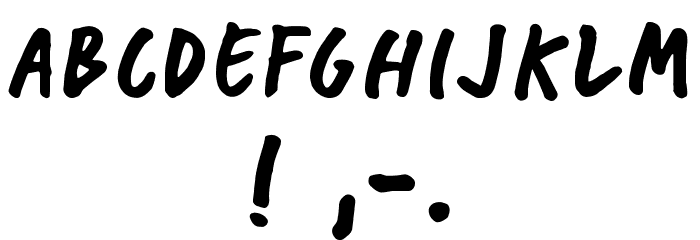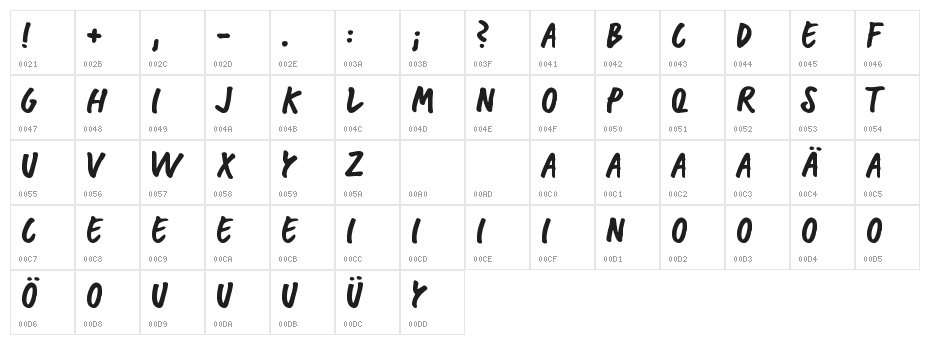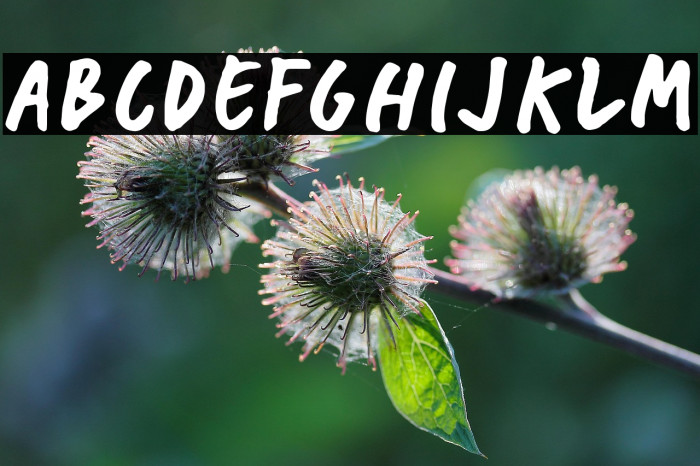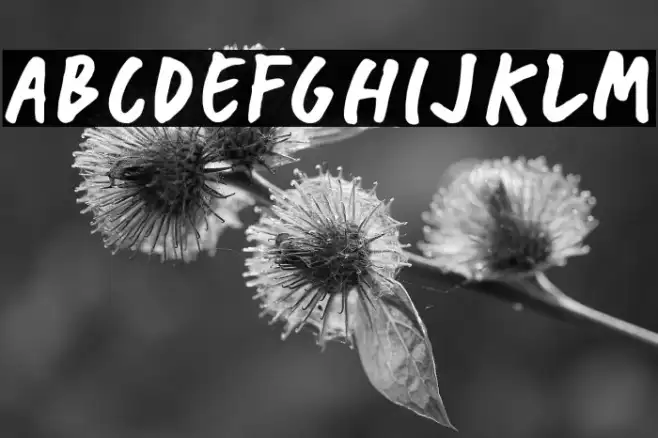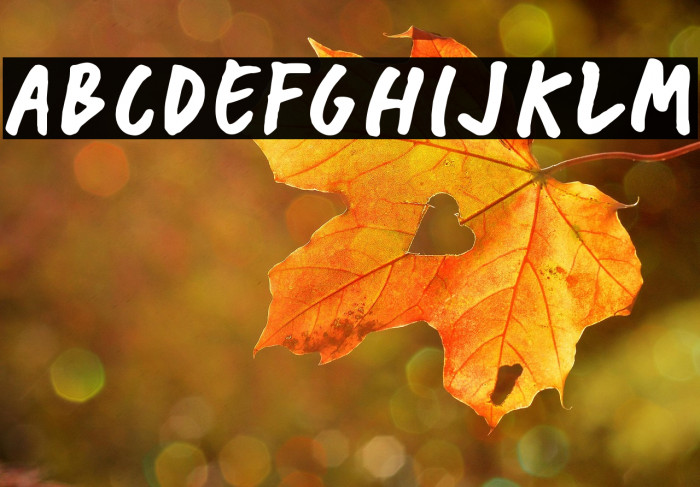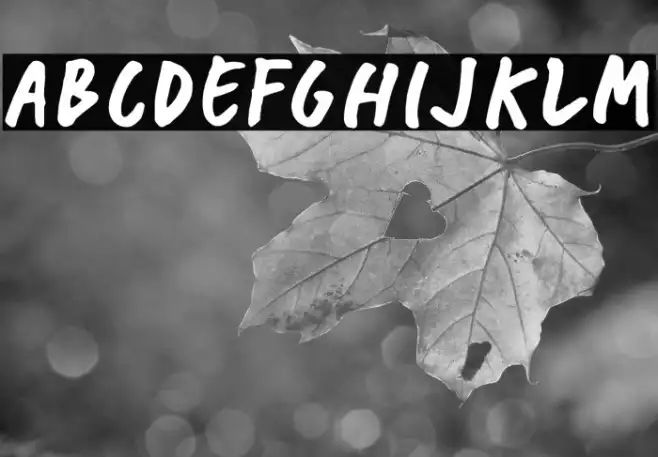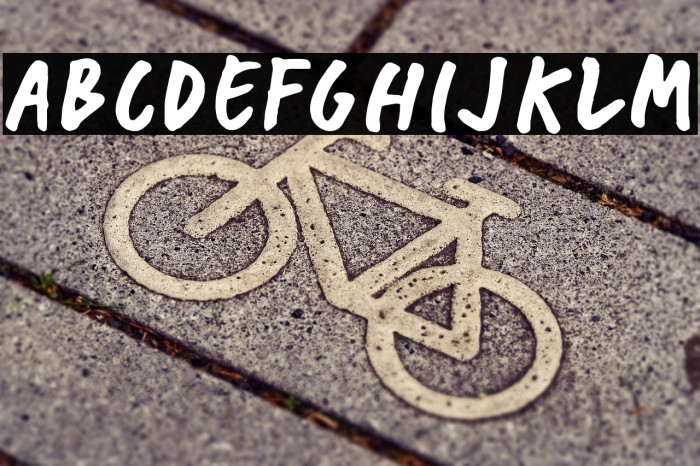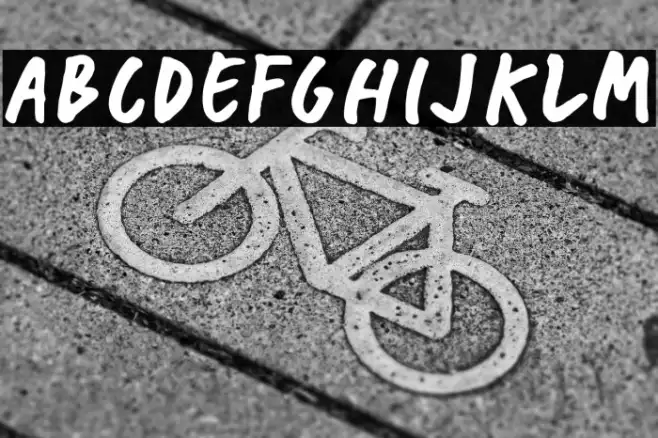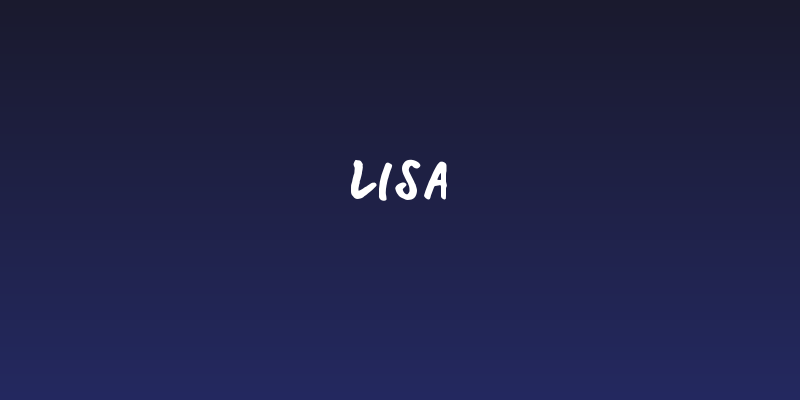
Lisa Font
Lisa Description
This font features a bold and expressive handwritten style, characterized by its thick strokes and slightly irregular letterforms. The letters have a casual and friendly appearance, with a dynamic flow that suggests movement and energy. The uppercase and lowercase characters maintain a consistent style, with rounded edges and a playful aesthetic. The numbers and special characters are designed to match the overall look, making the font versatile for various applications. Its informal nature makes it suitable for creative projects that require a personal touch.
| Overall Style | Casual and playful |
| Use Case | Headlines, Logos, Informal text |
| Proposed Projects | Ideal for greeting cards, social media graphics, posters, and branding materials that require a personal and informal touch. |